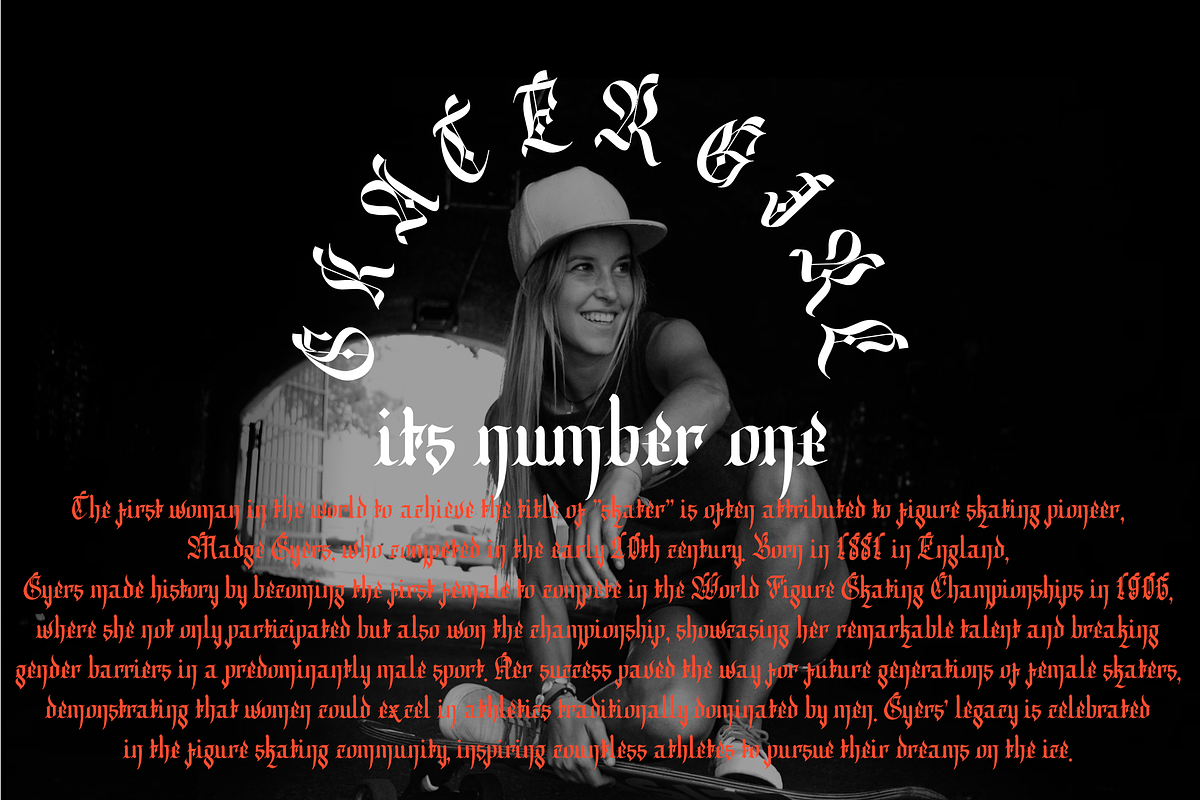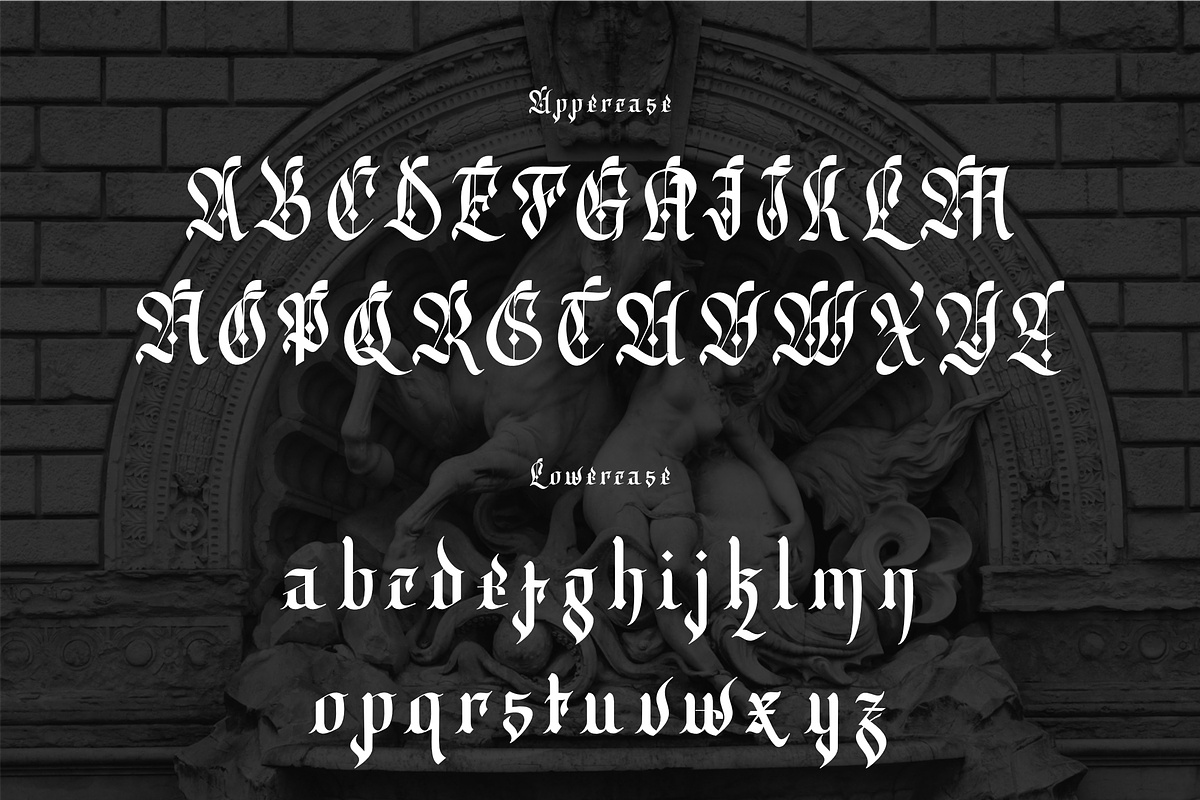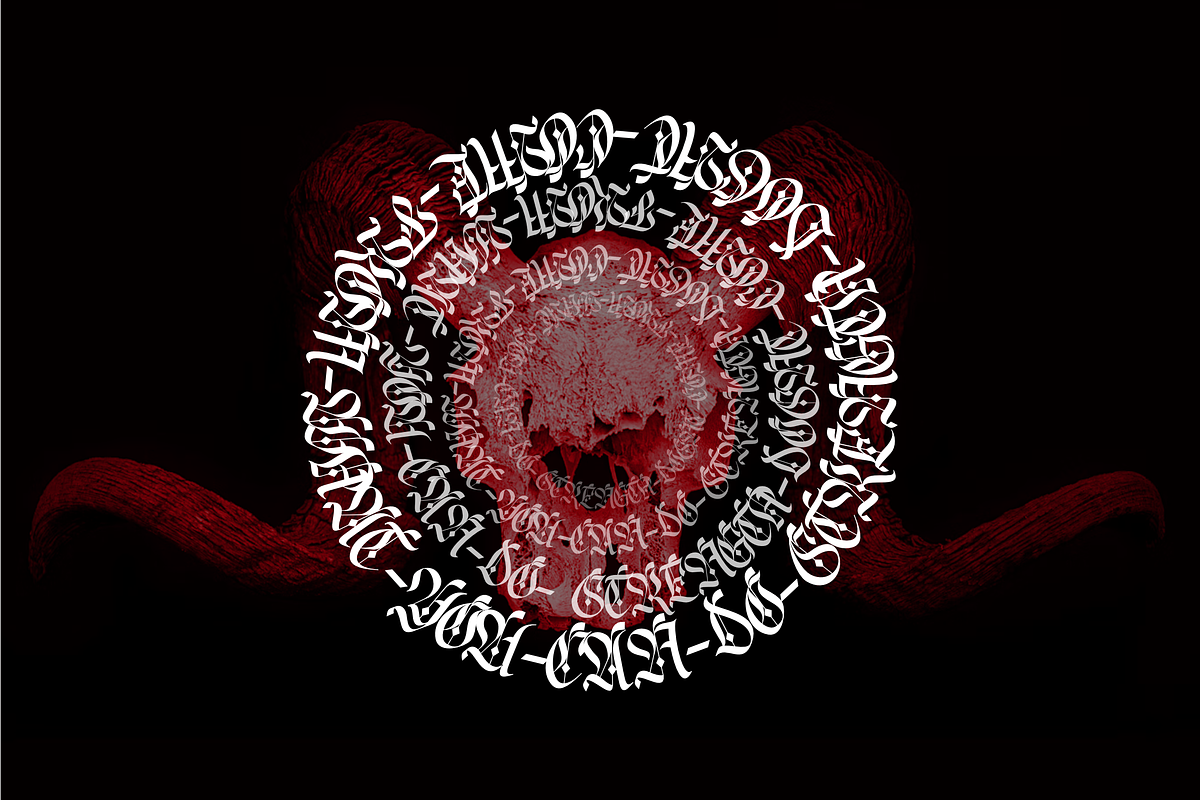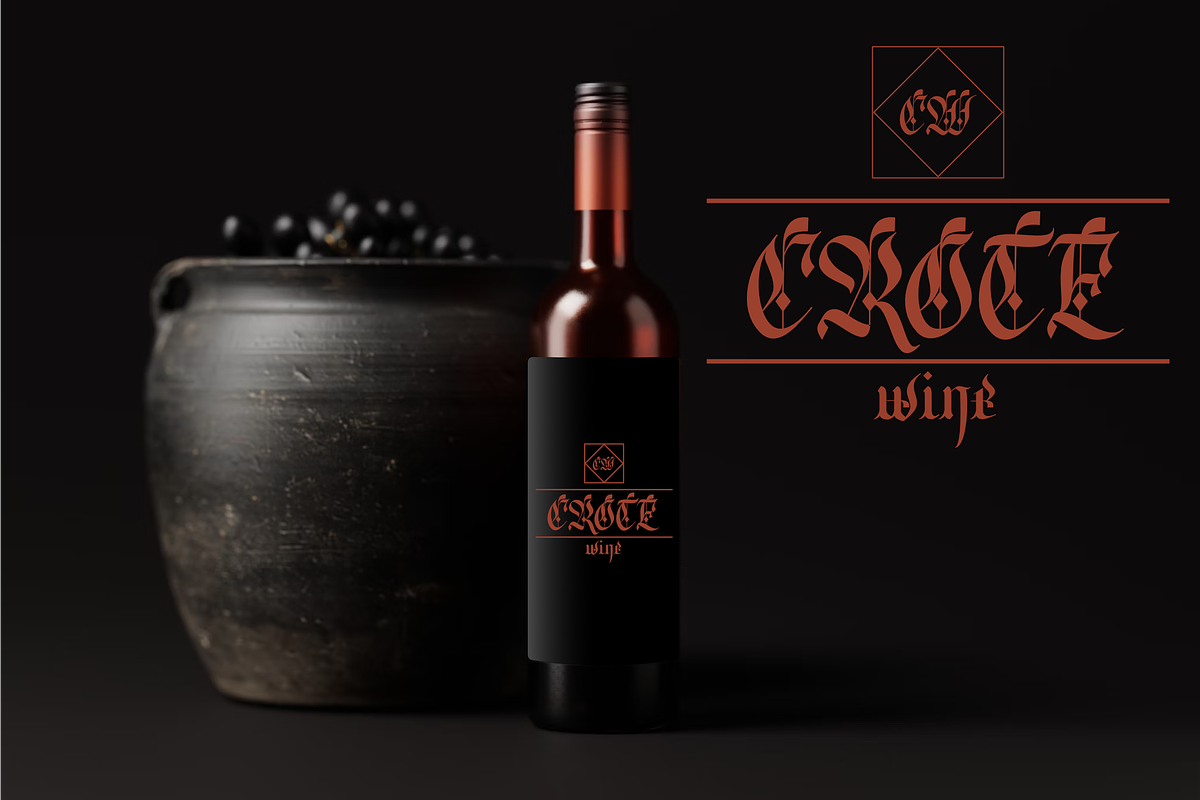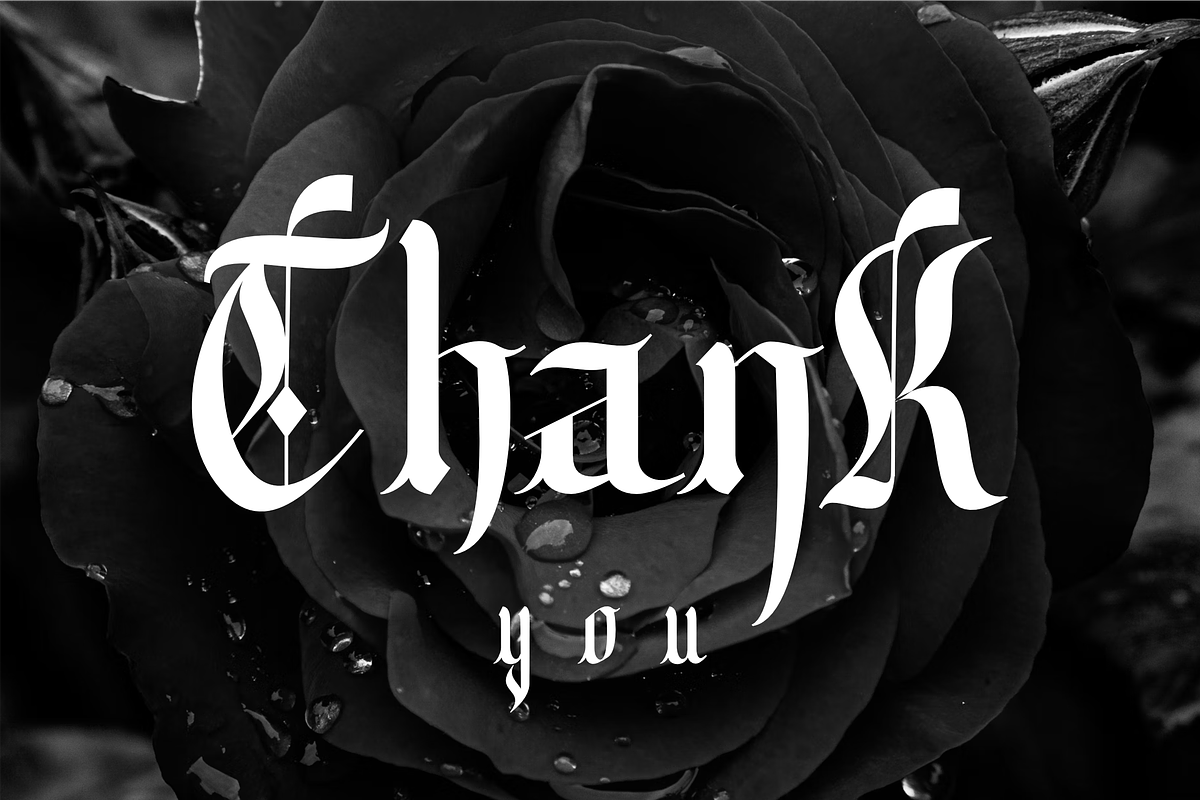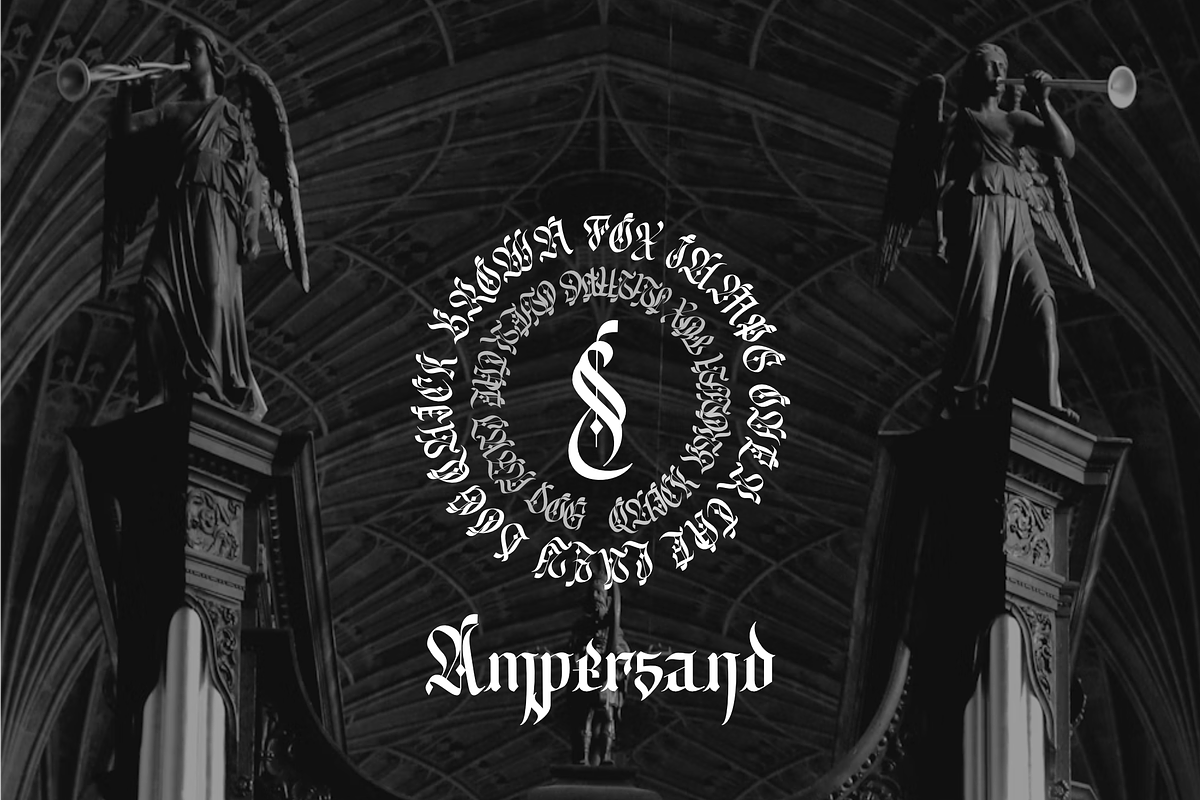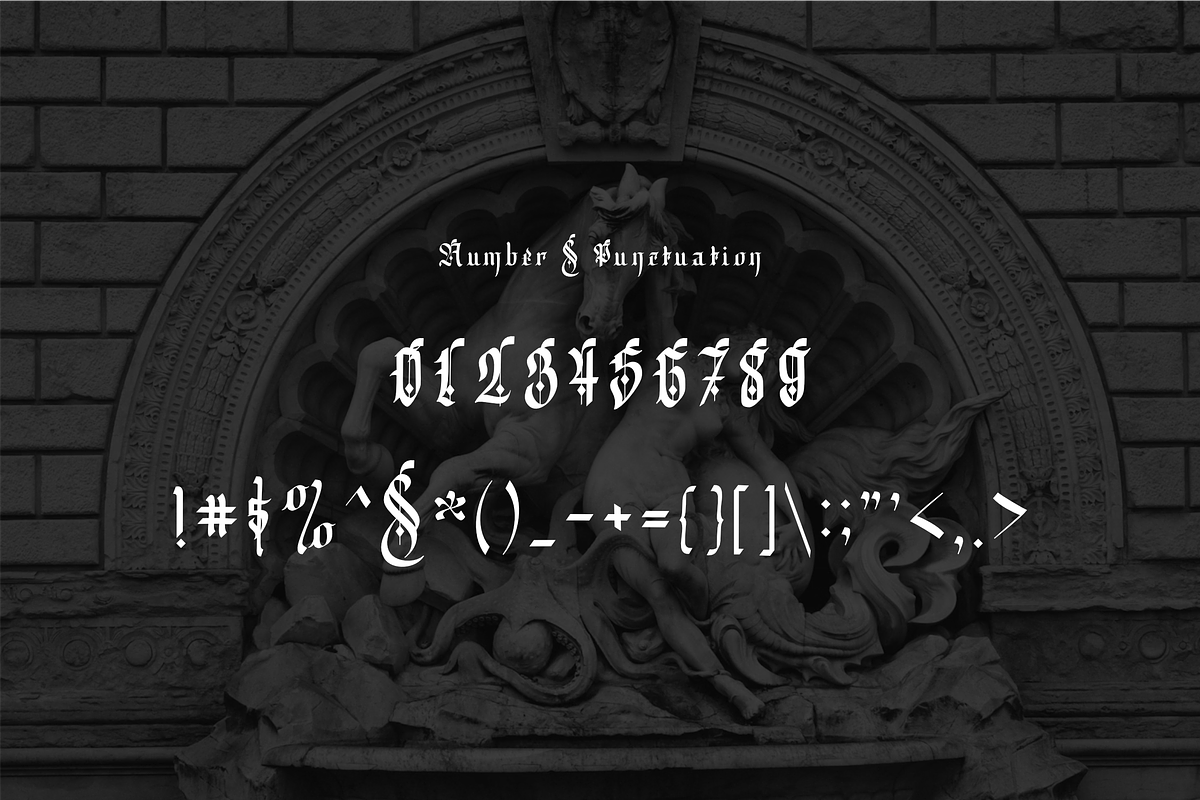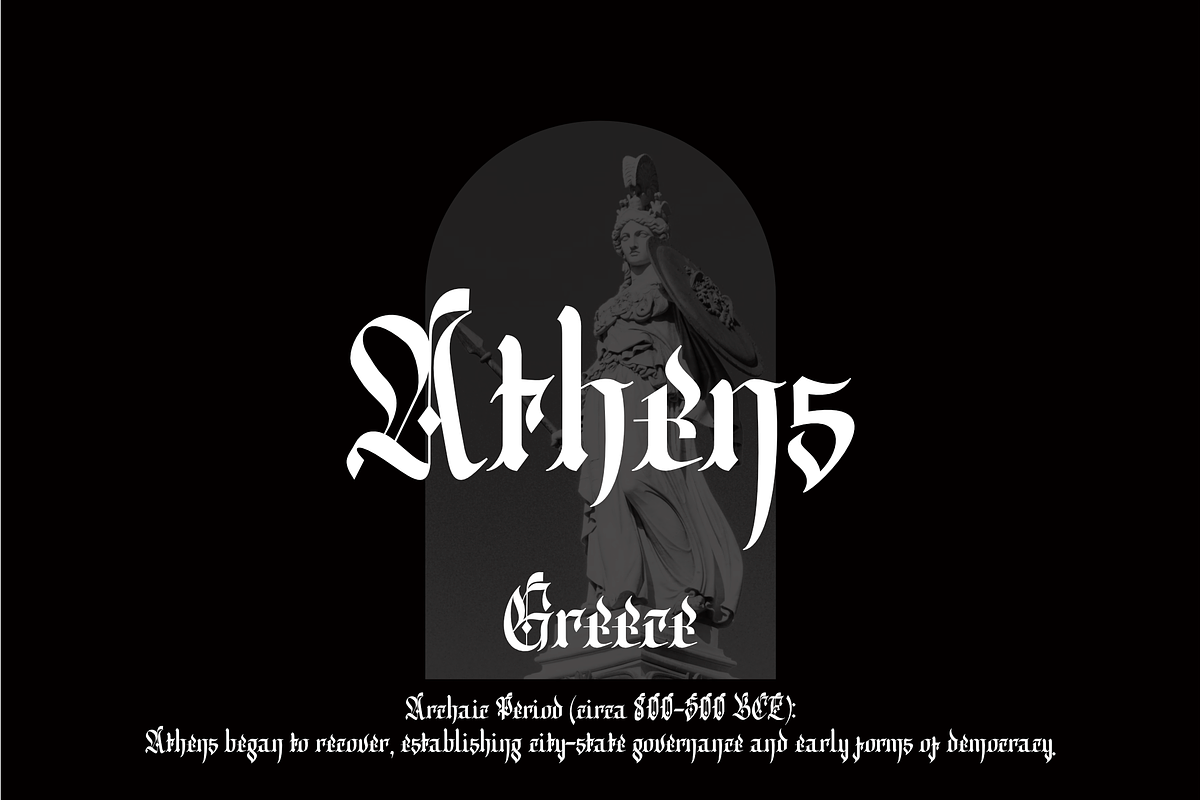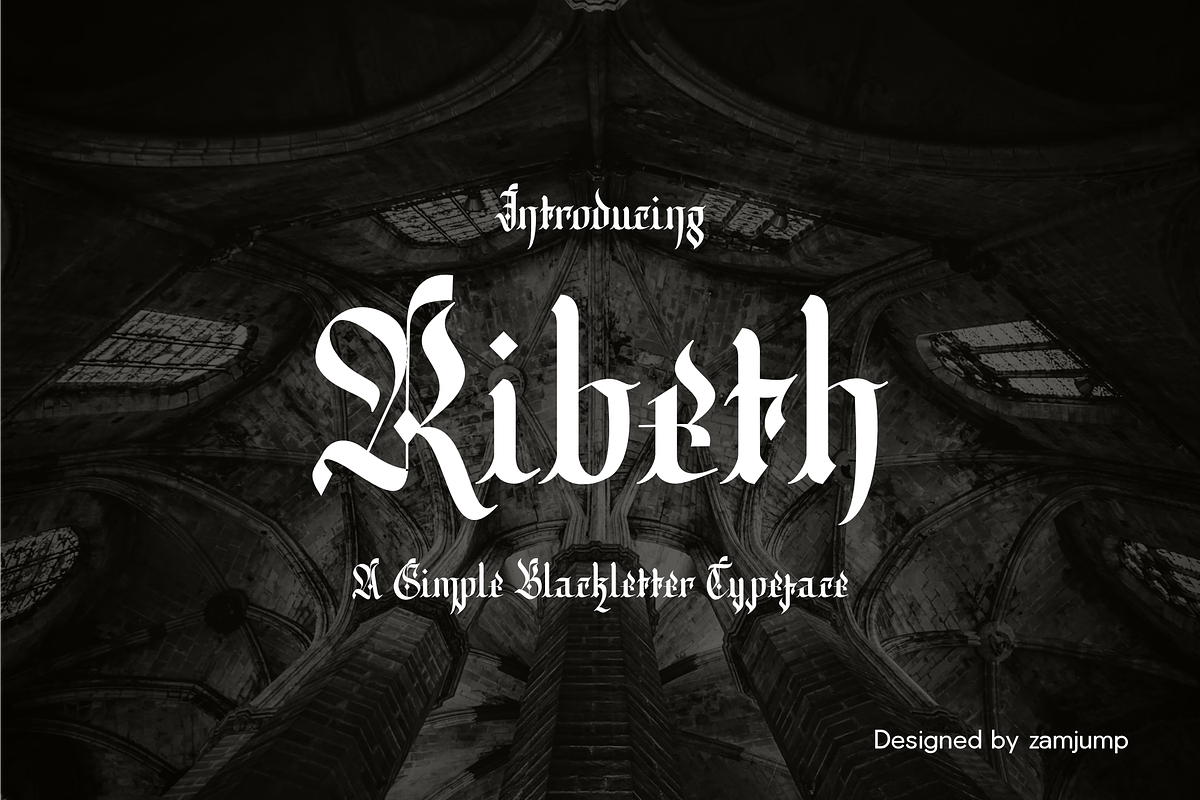
Ribeth - A Simple Blackletter Typefa
Ribeth is a simple blackletter typeface, designed with authentic hand lettering techniques to achieve a unique and striking character. Each glyph is meticulously processed to ensure a consistent style that maintains the charm of traditional blackletter while offering modern versatility. Ribeth is perfect for a variety of media, including print materials, branding, album covers, quotes, and hobby projects. Its distinctive aesthetic adds a touch of elegance and sophistication, making it an ideal choice for anyone looking to make a bold statement in their design work. Whether you're creating something classic or contemporary, Ribeth will elevate your projects with its timeless appeal. Included : TTF File Format OTF File Format WOFF/WOFF2 File Format Support Multilanguage Punctuation Numbering